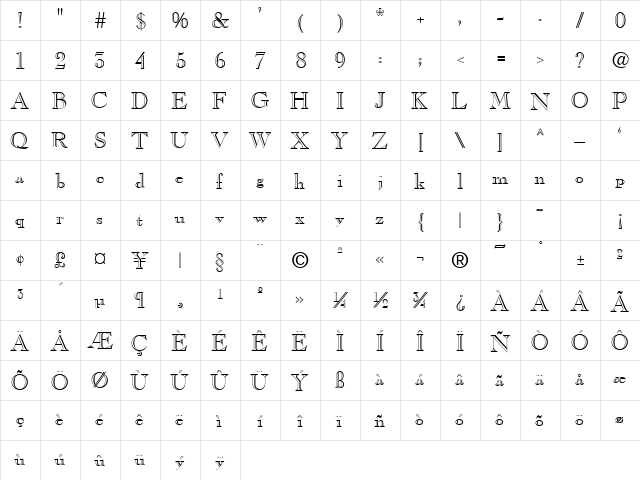
Cas-Open-Face Normal
Design Context for Cas-Open-Face Typeface
Cas-Open-Face is a composed and adaptable typeface that performs quietly and consistently across a wide range of design contexts.